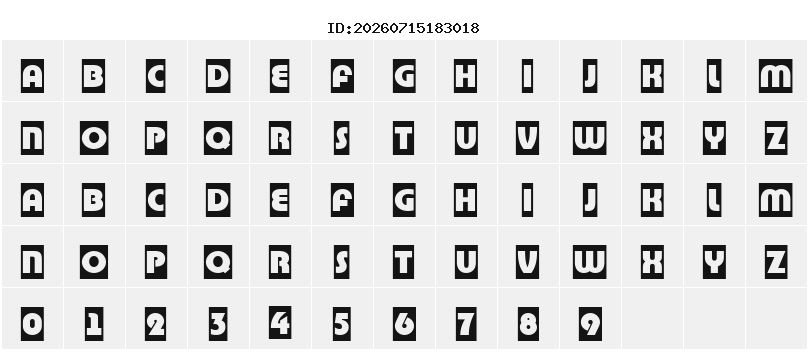
About a_BighausTitulCm.ttf
a_BighausTitulCm.ttf is a modern, elegant sans-serif font designed for ultimate readability and visual harmony. Perfect for branding, headlines, web design, and print materials.